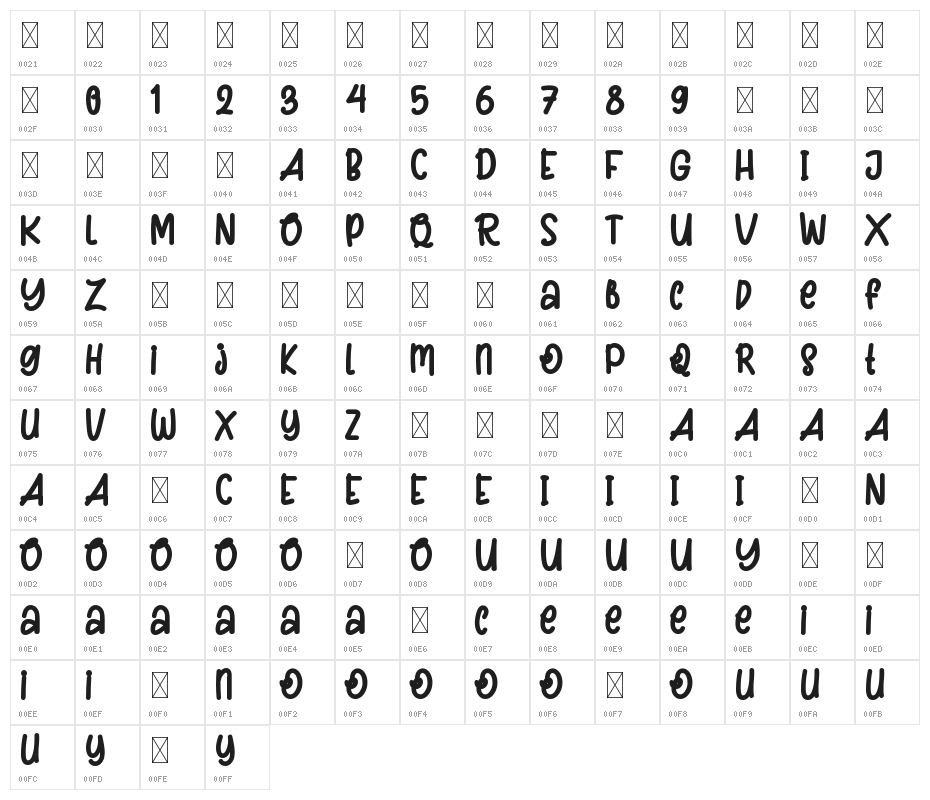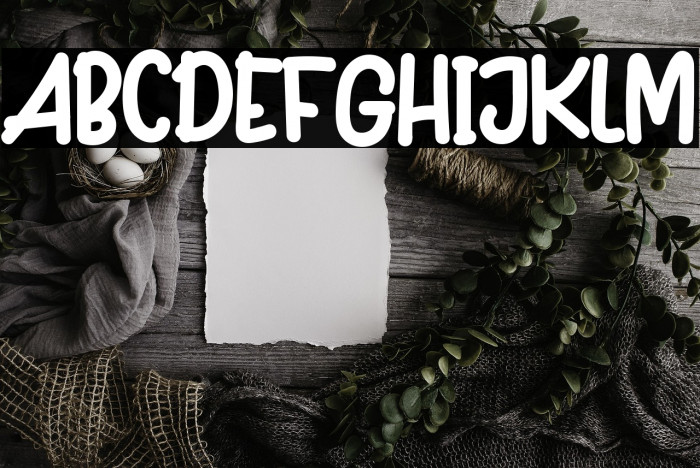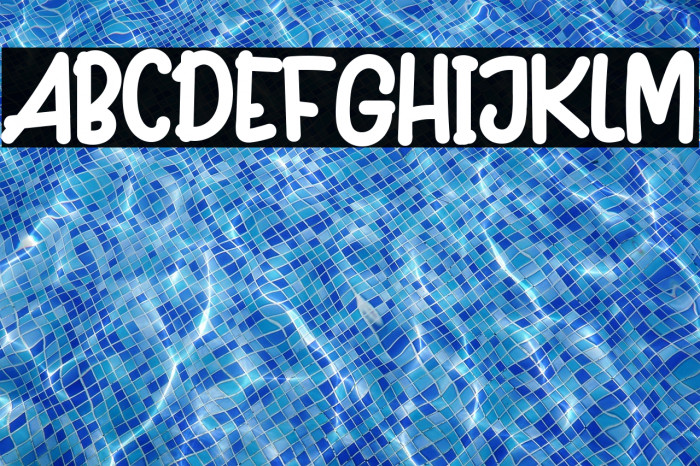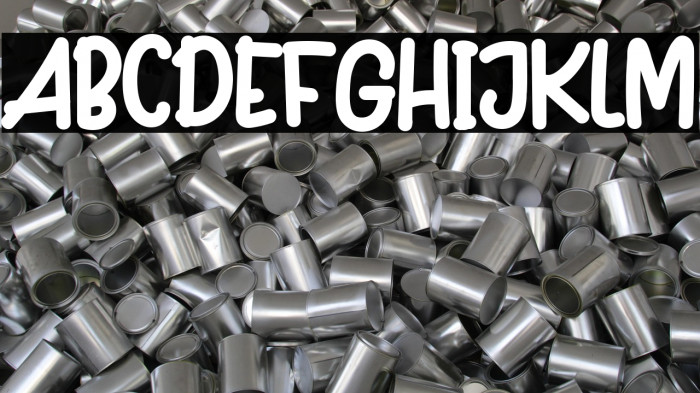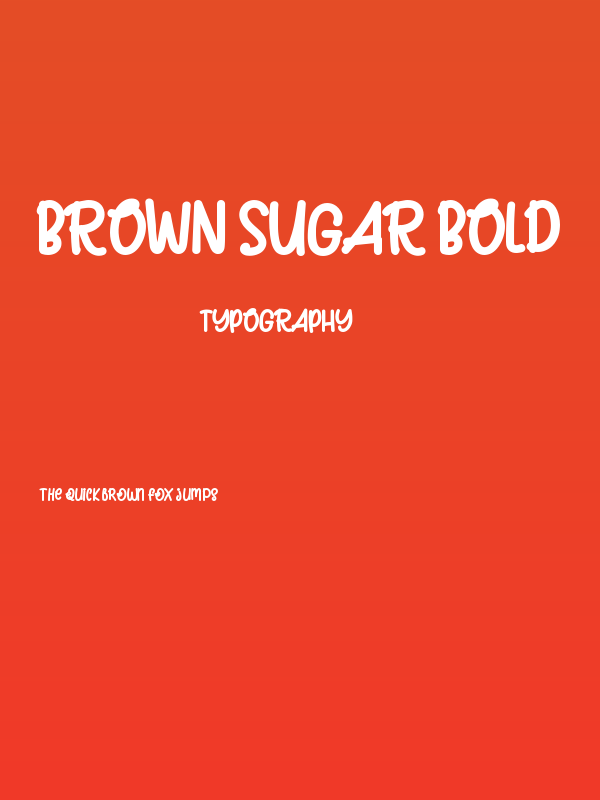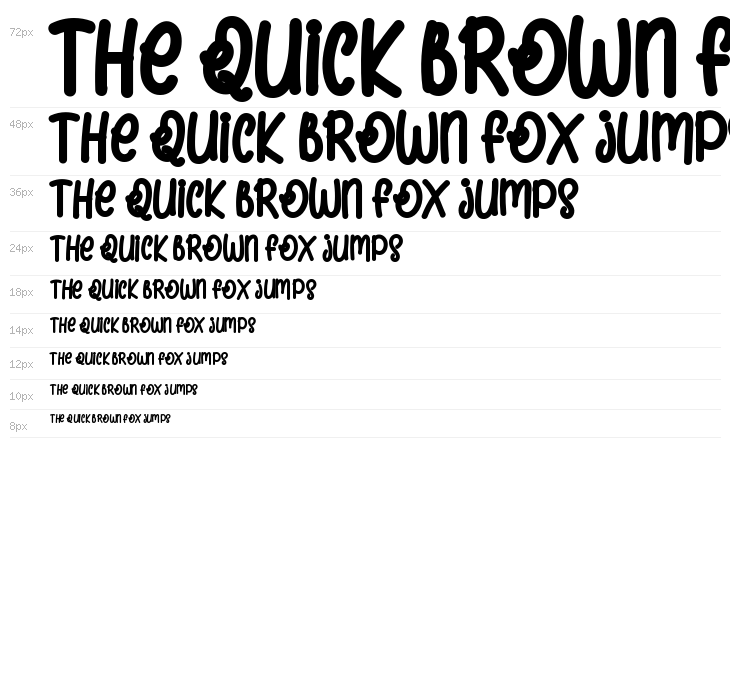
Brown Sugar Bold Font
Brown Sugar Bold Description
This font features a playful and bold style with rounded edges and a handwritten feel. The letters are thick and have a consistent weight, giving them a strong presence on the page. The uppercase and lowercase letters maintain a uniform height, contributing to a cohesive look. The numbers are equally bold, matching the style of the alphabet. The font's playful nature is emphasized by its rounded, smooth curves, making it ideal for projects that require a friendly and approachable aesthetic. The overall design is modern and suitable for a variety of creative applications.
| Overall Style | Playful, Modern |
| Proposed Projects | Ideal for children's books, playful branding, posters, and social media graphics. |